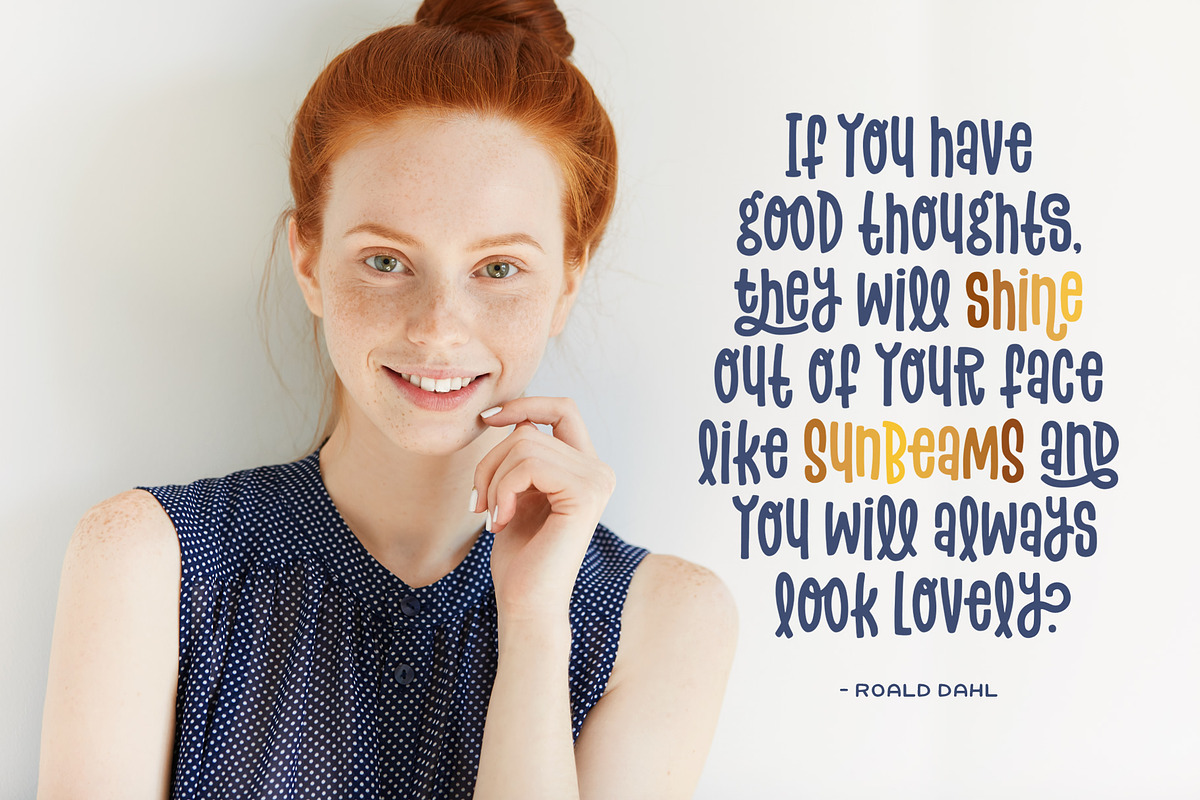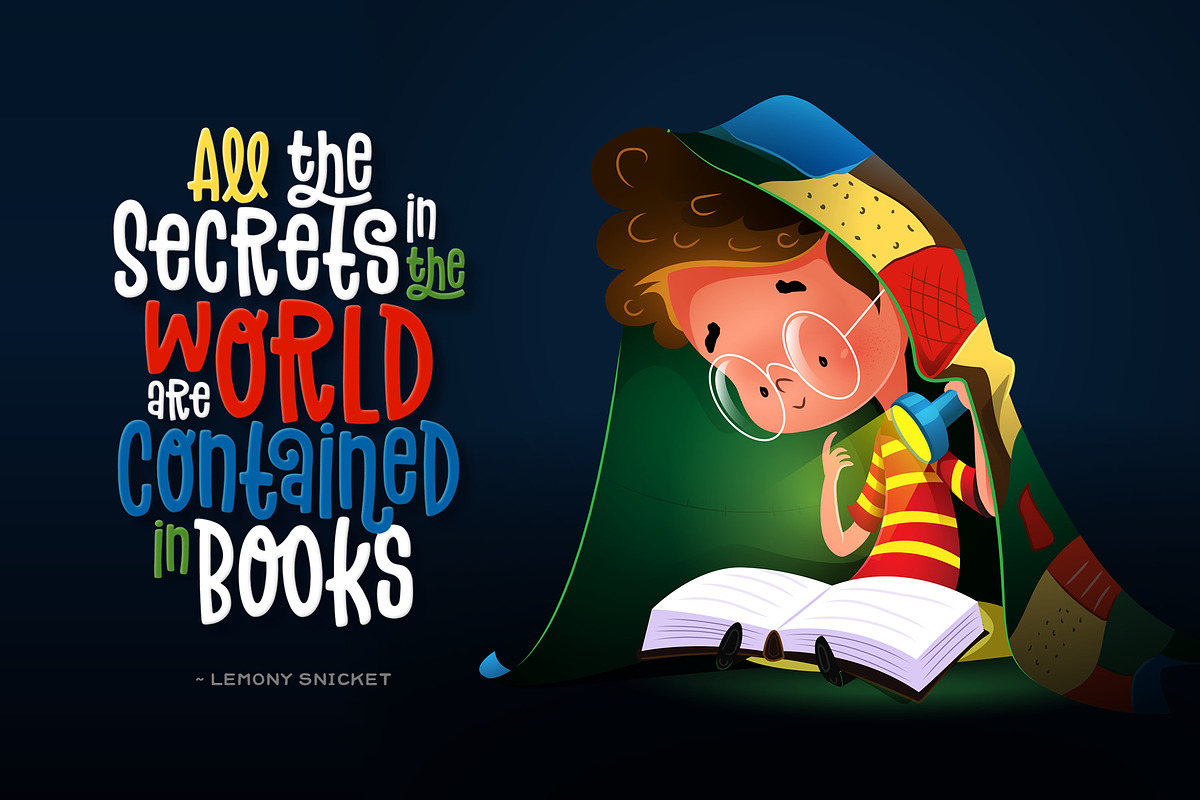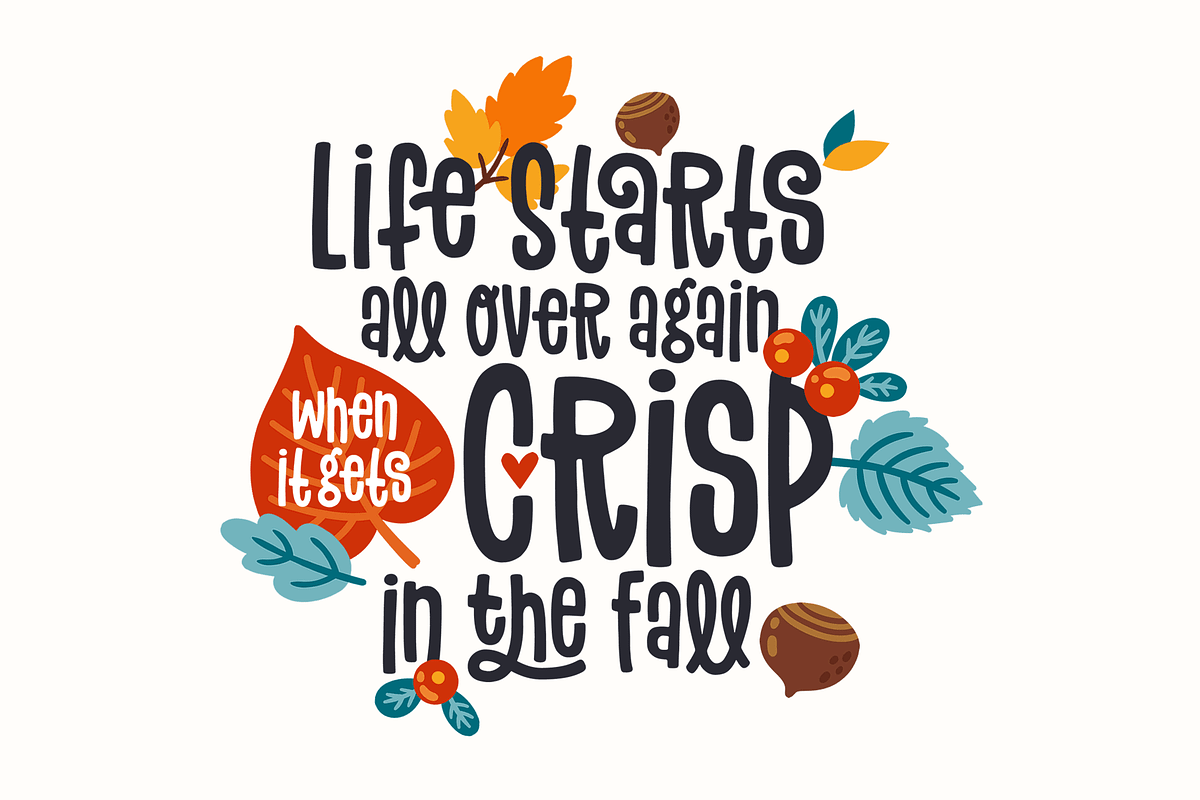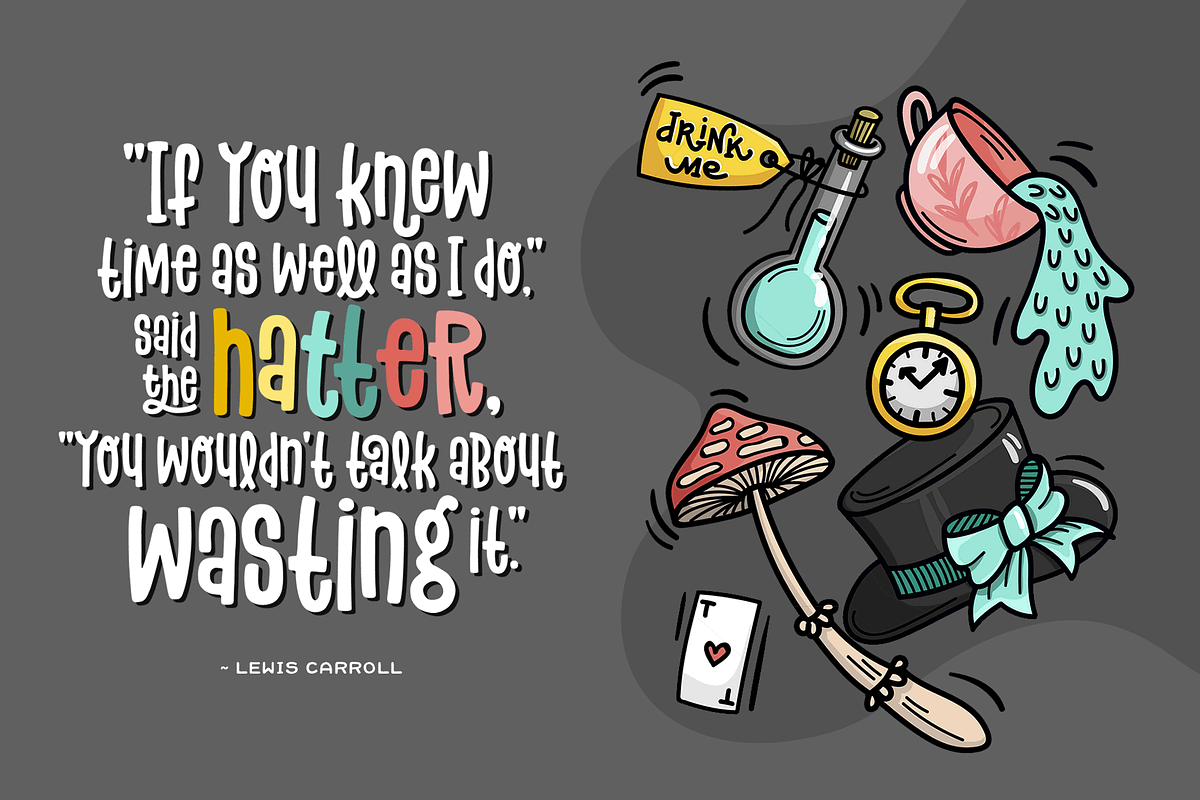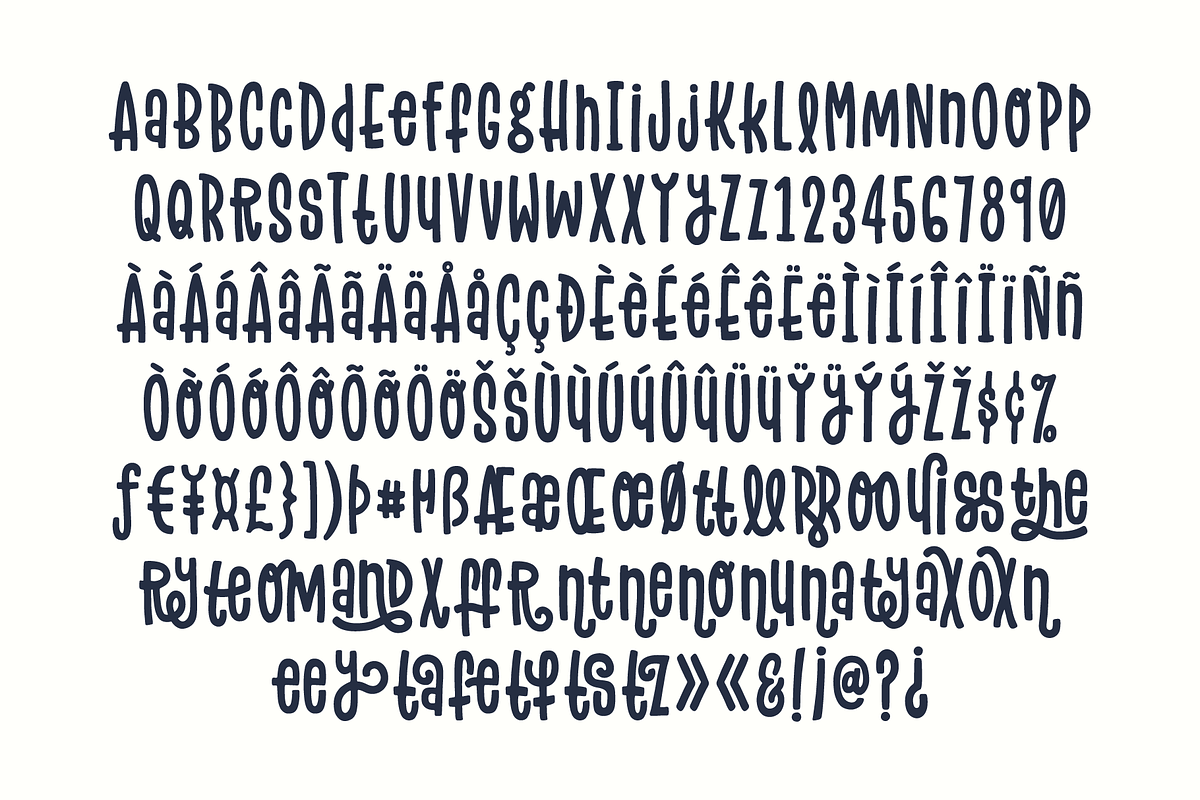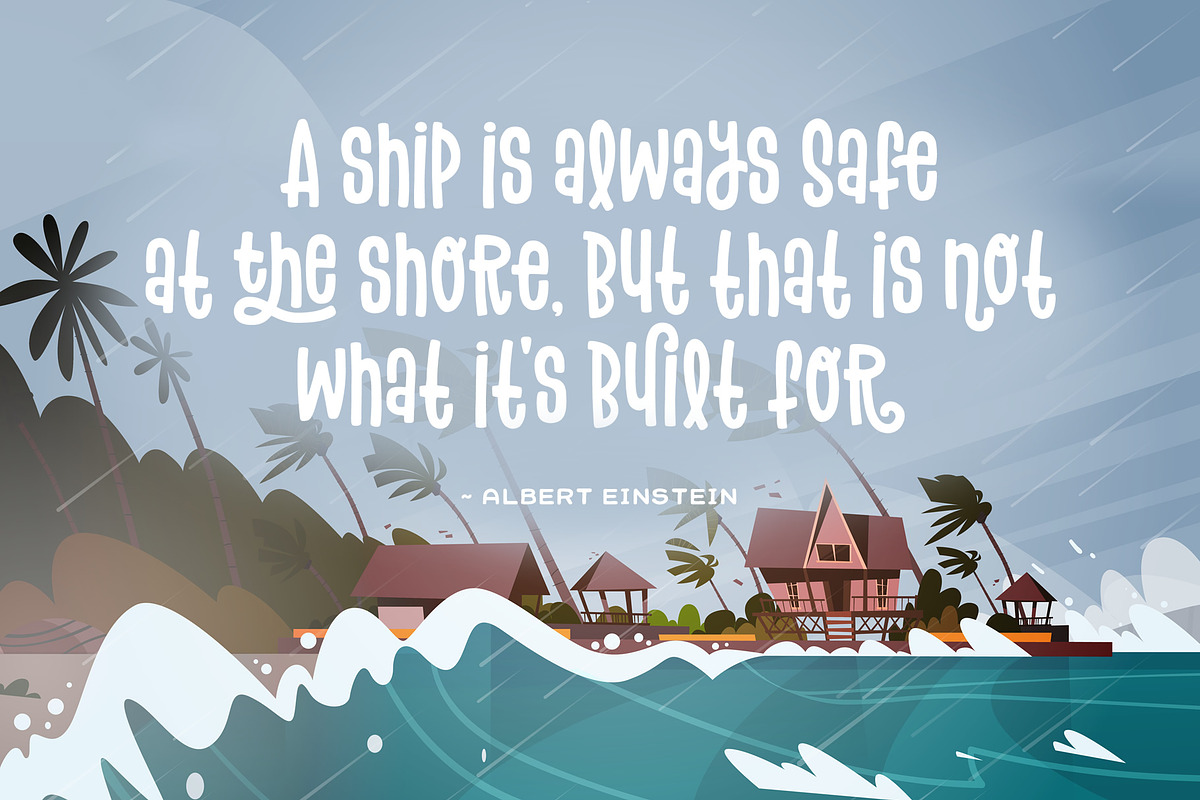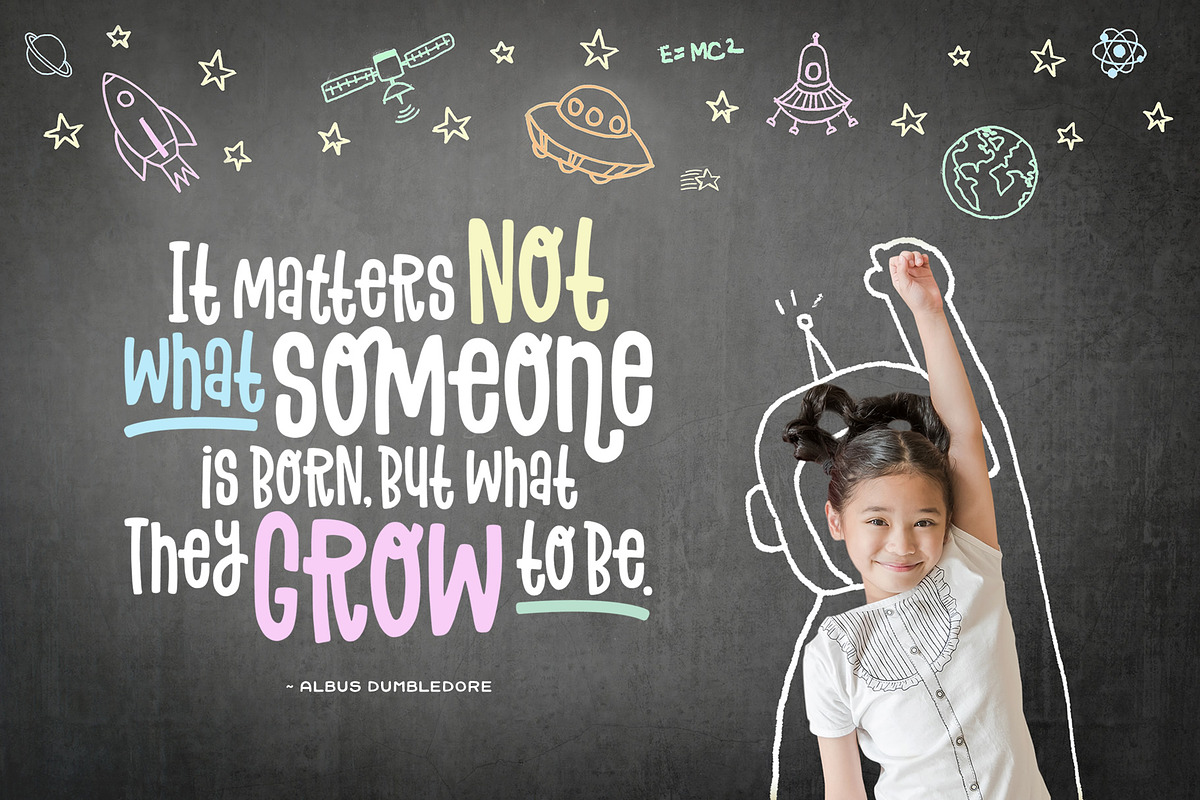
Flowery Font
Flowery is a sweet sans font bursting with charm. It comes in two variations: a regular version and a stylized version that includes opentype features to create ligatures and alternate characters.
Flowery Font by Denise Chandler fits naturally into Branding, posters, packaging, typography.